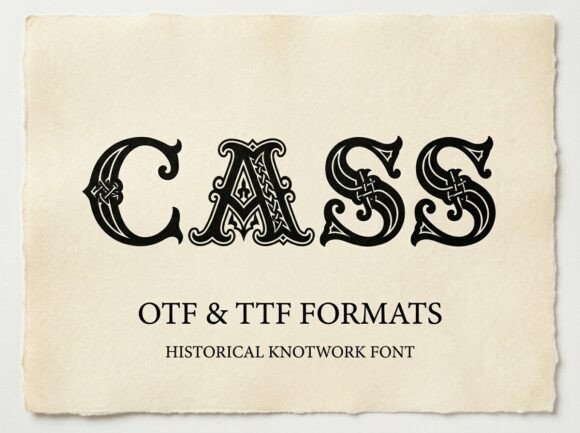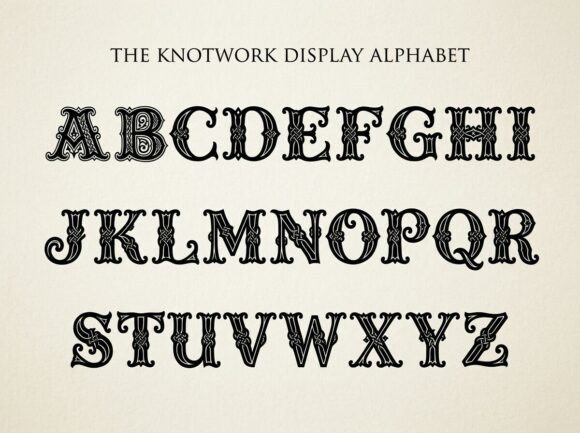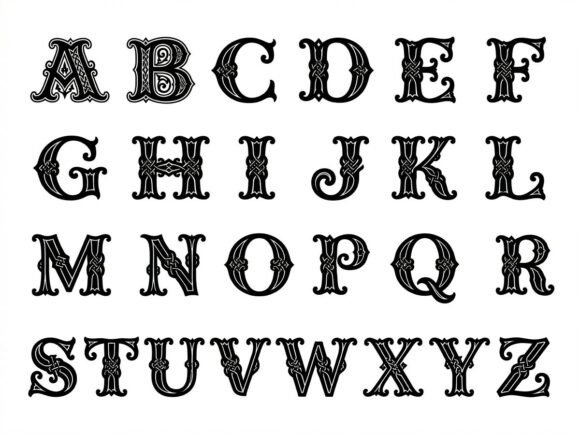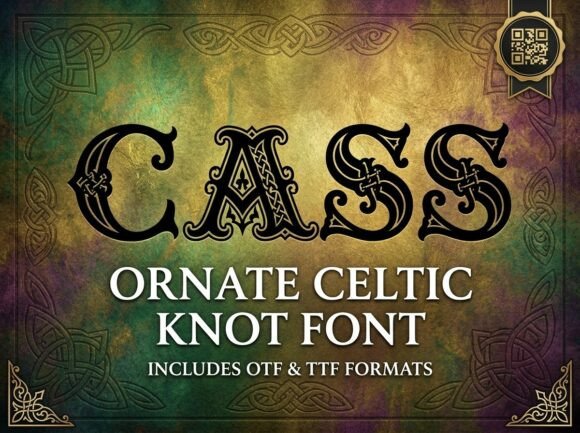
Cass Font: A Stunning Decorative Display Font for Creative Minds
Are you tired of using the same old fonts for your designs? Do you want to make a statement and stand out from the crowd? Look no further than the Cass Font, a stunning decorative display font that’s designed to be the center of attention. With its unique artistic elements and strong visual personality, this font is perfect for creators who want to break away from the ordinary and add a touch of elegance to their work.
What Makes Cass Font So Special?
Cass Font is a versatile decorative font that’s specifically designed for high-impact headlines, logos, and decorative initials. Its unique artistic elements and strong visual personality make it perfect for a wide range of design projects, from bold headlines and artistic logos to creative packaging and more. Whether you’re a graphic designer, a crafty DIY enthusiast, or a business owner looking to create a strong brand identity, Cass Font is the perfect choice.
Key Features of Cass Font
- Unique Artistic Elements: Cass Font features unique artistic elements that set it apart from other fonts. Its intricate details and elegant lines make it a true work of art.
- Strong Visual Personality: This font has a strong visual personality that’s sure to grab attention. Its bold and eye-catching design makes it perfect for headlines, logos, and other design elements that need to stand out.
- Versatile: Cass Font is versatile enough for a wide range of design projects, from bold headlines and artistic logos to creative packaging and more.
- Professional and Polished Finish: Despite its bold and artistic design, Cass Font maintains a professional and polished finish that’s perfect for businesses and individuals who want to create a strong brand identity.
IMPORTANT NOTE BEFORE PURCHASE: This font is an ALL-CAPS (Uppercase Only) display typeface. It does not include lowercase letters. It is specifically designed for high-impact headlines, logos, and decorative initials where every letter is a work of art.
Why Choose Cass Font?
There are many reasons why Cass Font is the perfect choice for designers and crafters. Here are just a few:
- Stand Out from the Crowd: With its unique artistic elements and strong visual personality, Cass Font is sure to help you stand out from the crowd and make a statement.
- Elegant and Sophisticated: This font is perfect for creating elegant and sophisticated designs that are sure to impress.
- Versatile: Cass Font is versatile enough for a wide range of design projects, making it a great addition to any design library.
- Professional and Polished Finish: This font maintains a professional and polished finish that’s perfect for businesses and individuals who want to create a strong brand identity.
How to Use Cass Font
Cass Font is easy to use and can be incorporated into a wide range of design projects. Here are just a few ideas:
- Headlines and Titles: Use Cass Font to create bold and eye-catching headlines and titles that are sure to grab attention.
- Logos and Branding: This font is perfect for creating artistic logos and branding elements that are sure to make a statement.
- Packaging and Labels: Use Cass Font to create creative packaging and labels that are sure to stand out.
- Invitations and Stationery: This font is perfect for creating elegant and sophisticated invitations and stationery.